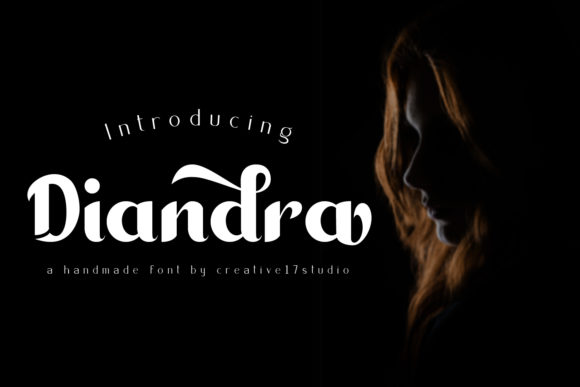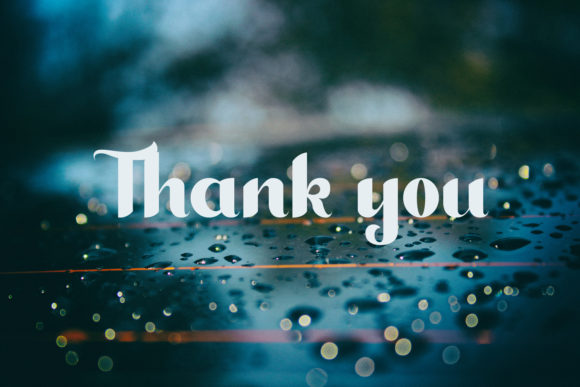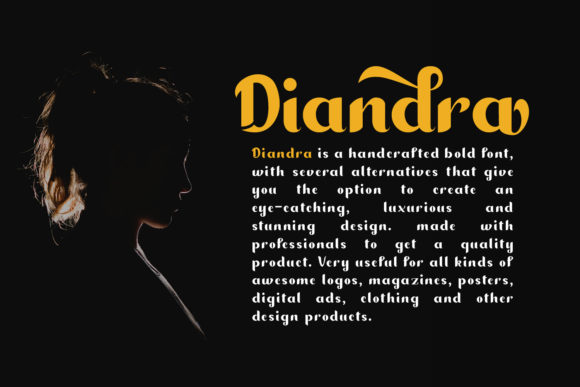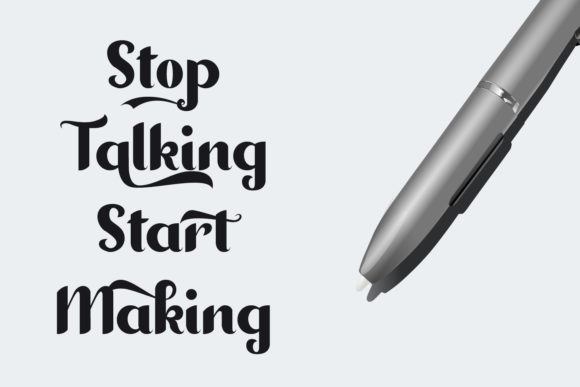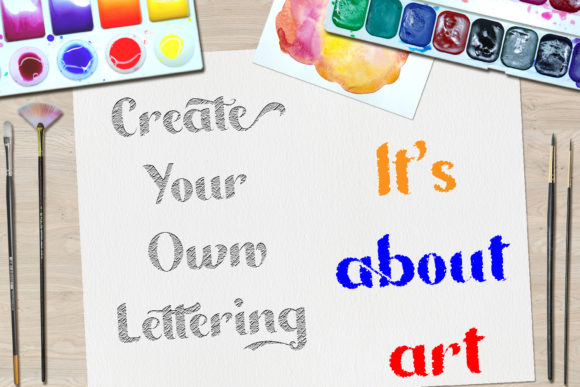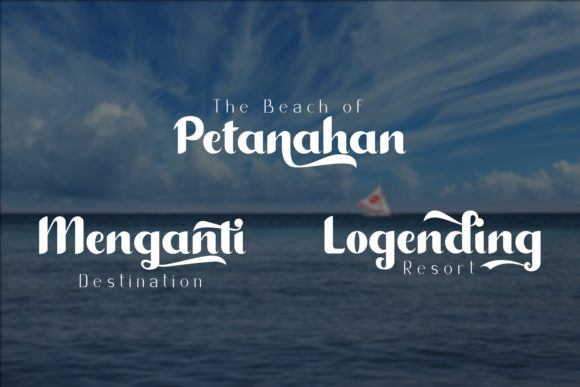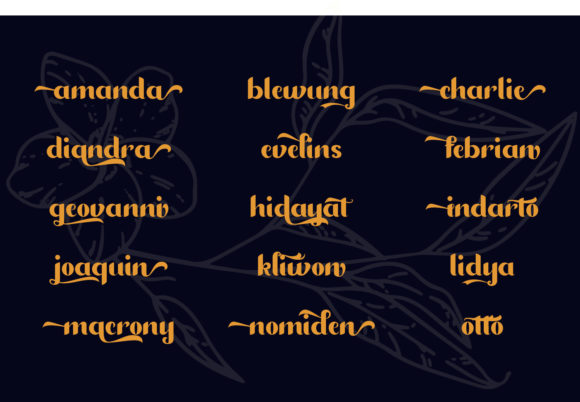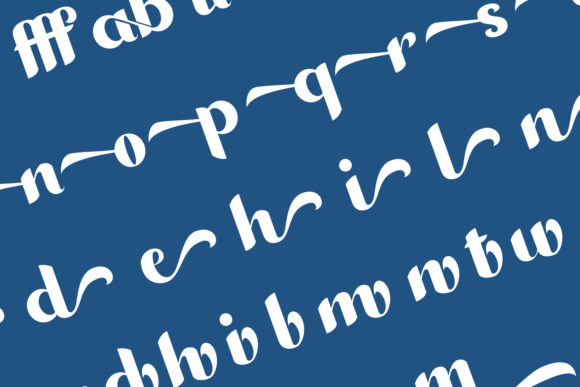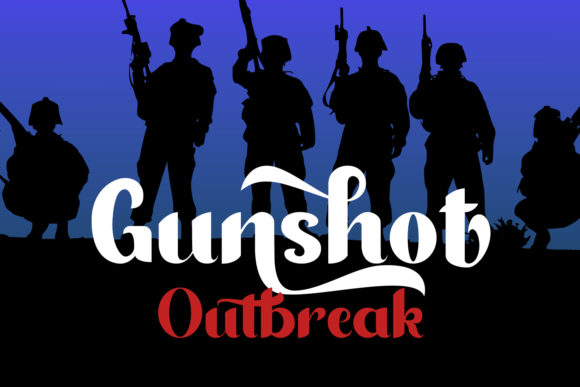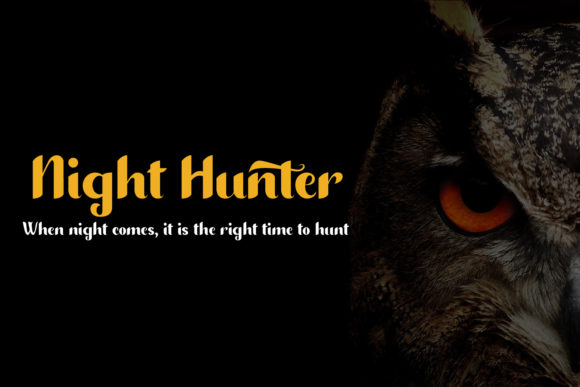
Diandra Font
About Diandra Font
Diandra is a gorgeous and bold handwritten font, crafted to give your headlines and logotype projects a stylish touch. This font reads as strong, confident, and dynamic and can add tons of nostalgic character to your designs. Diandra is PUA encoded which means you can access all of the glyphs and swashes with ease!